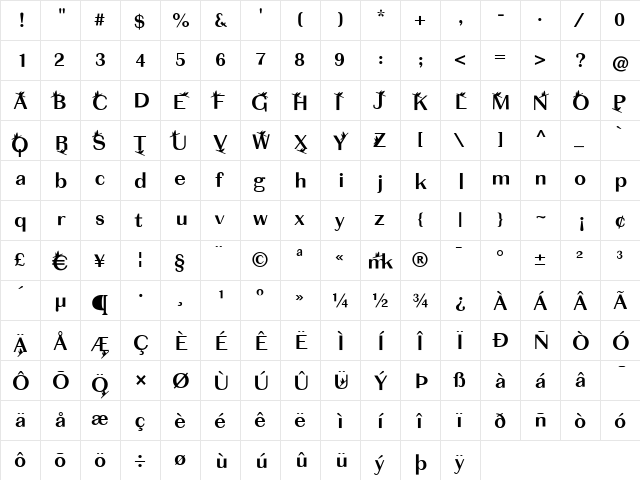
EatMyHat Regular
Design Context for EatMyHat Typeface
EatMyHat is a composed and adaptable typeface that performs quietly and consistently across a wide range of design contexts.